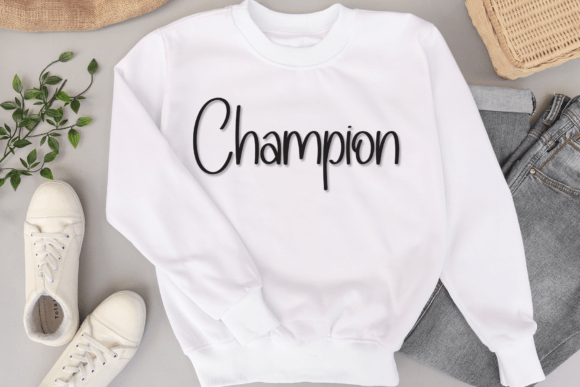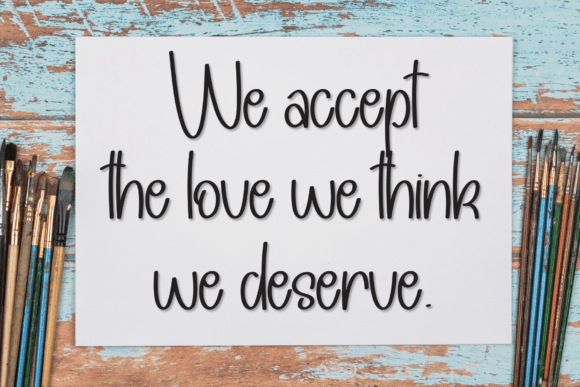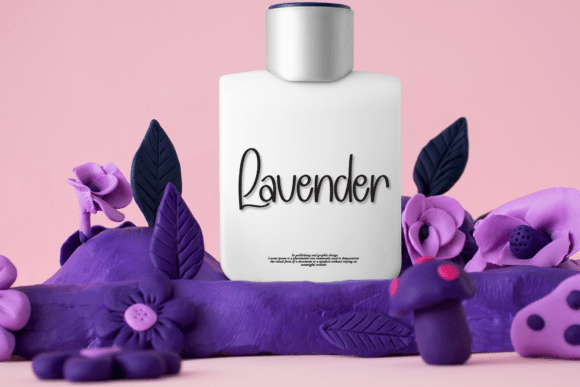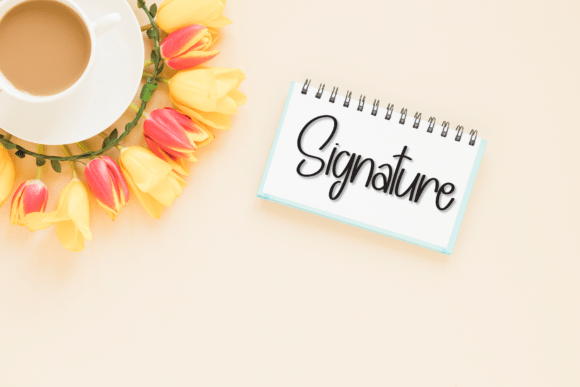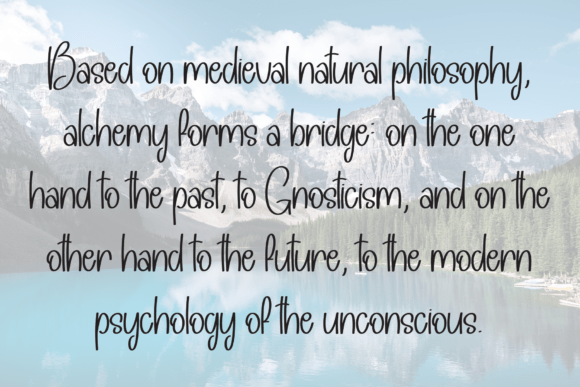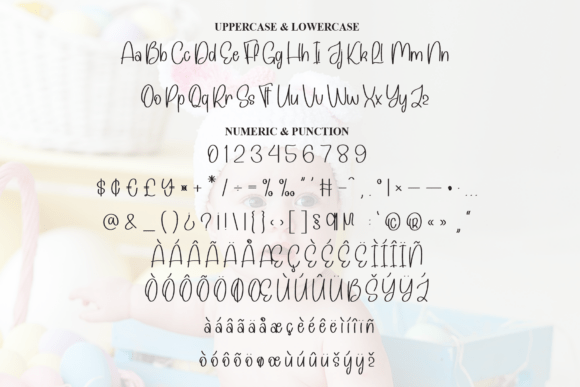
Babyish Samantha Font: The Ultimate Casual Handwritten Font for Designers and Crafters
In the world of typography, fonts play a crucial role in conveying the tone and personality of a design. For designers and crafters looking for a font that exudes warmth, authenticity, and a personal touch, Babyish Samantha is an excellent choice. This casual handwritten font has gained popularity for its smooth strokes, relaxed curves, and naturally balanced letterforms that capture the essence of everyday handwriting.
What Makes Babyish Samantha Stand Out?
Babyish Samantha is more than just a font; it’s a design element that can elevate any project with its clean and approachable style. Its smooth strokes and relaxed curves give it a natural, effortless flow that makes it perfect for a wide range of applications, from quotes and branding to packaging and social media posts.
One of the key features that sets Babyish Samantha apart is its ability to add a personal and friendly touch to any design. In an era where digital communication dominates, this font helps designers create a sense of warmth and connection with their audience. Whether you’re working on a project for a client or creating something for your own brand, Babyish Samantha can help you achieve a more approachable and relatable tone.
Versatility and Readability
Babyish Samantha is not just charming; it’s also highly versatile and readable. The font’s naturally balanced letterforms ensure that it remains clear and legible, even at smaller sizes. This makes it an excellent choice for designers who need a font that can perform well across different mediums and applications.
From a design perspective, Babyish Samantha’s versatility is one of its strongest assets. It can be used for a wide range of projects, including:
- Quotes and inspirational messages: Add a personal touch to your quotes and messages with Babyish Samantha’s warm and inviting style.
- Branding and logos: Use Babyish Samantha to create a friendly and approachable brand identity that resonates with your audience.
- Packaging design: Elevate your packaging design with a font that exudes warmth and authenticity.
- Social media posts: Make your social media posts stand out with Babyish Samantha’s clean and approachable style.
Why Designers and Crafters Love Babyish Samantha
Designers and crafters love Babyish Samantha for its unique combination of charm, versatility, and readability. Here are some reasons why:
- Easy to read: Babyish Samantha’s smooth strokes and balanced letterforms make it easy to read, even for extended periods.
- Highly versatile: The font can be used for a wide range of projects, from digital designs to print materials.
- Authentic feel: Babyish Samantha’s handwritten style gives it an authentic feel that’s perfect for designers looking to add a personal touch to their work.
- Clean and approachable: The font’s clean and approachable style makes it perfect for designers who want to create a friendly and inviting tone.
Tips for Using Babyish Samantha in Your Designs
To get the most out of Babyish Samantha, here are some tips for using the font in your designs:
- Pair it with other fonts: Experiment with pairing Babyish Samantha with other fonts to create a unique and visually appealing combination.
- Use it for headings and titles: Babyish Samantha is perfect for headings and titles, where its charm and personality can shine.
- Experiment with colors: Try using Babyish Samantha with different colors to create a unique and eye-catching design.
- Keep it simple: Don’t be afraid to keep your design simple and clean, allowing Babyish Samantha to take center stage.
In conclusion, Babyish Samantha is a casual handwritten font that offers a unique combination of charm, versatility, and readability. Its smooth strokes, relaxed curves, and naturally balanced letterforms make it perfect for designers and crafters looking to add a personal and friendly touch to their work. Whether you’re working on a branding project, packaging design, or social media post, Babyish Samantha is an excellent choice for any design that requires a clean, approachable, and authentic feel.